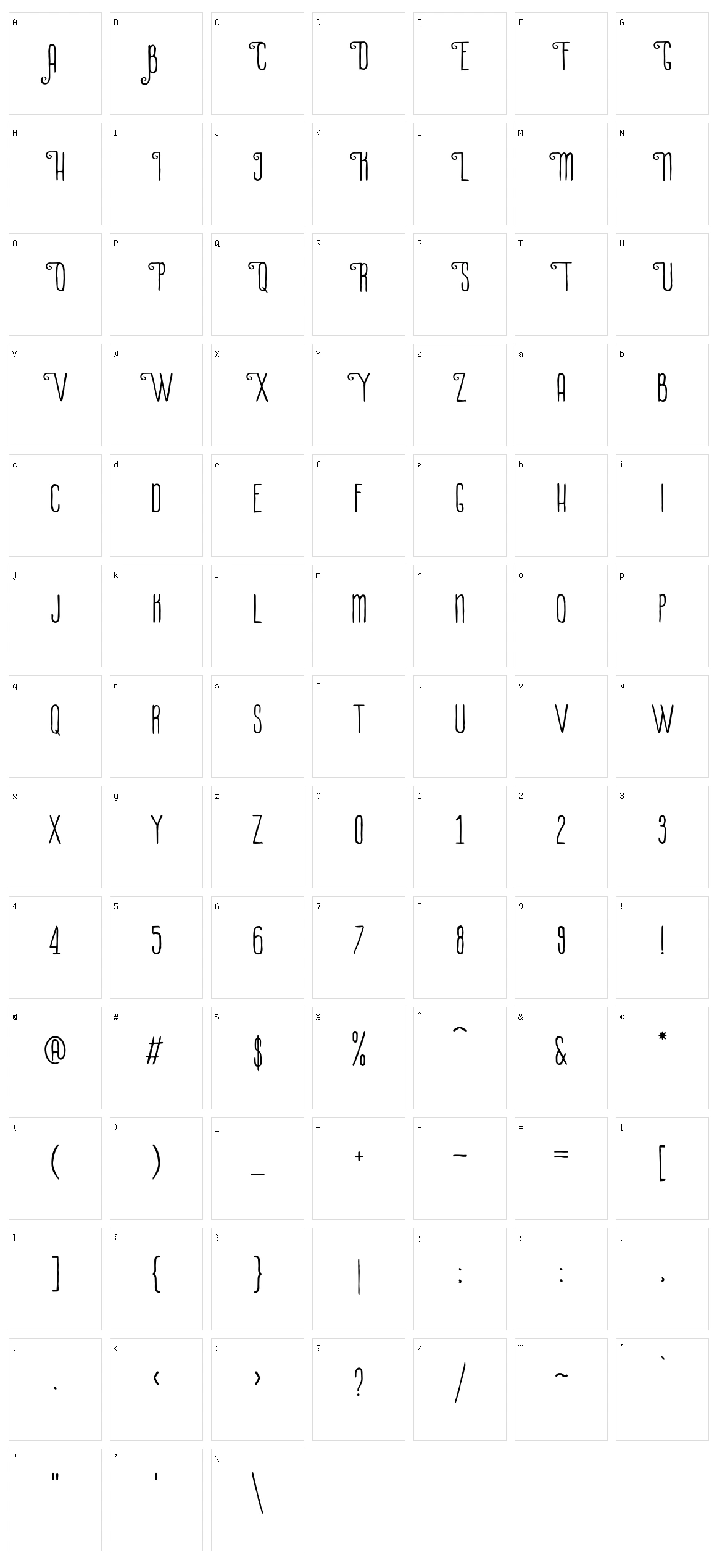
The free font La Petitenget is carefully designed by Burntilldead Typefoundry, showcasing a thoughtful balance of creativity and usability and falls under the Script font style. When you download the ZIP file, it contains only 59.28 KB of font files, making it lightweight and quick to download. Please review the license details below to understand permitted usage and distribution rights. If license information is not available, we recommend using this font for personal projects only or contacting the author directly for commercial usage permissions.